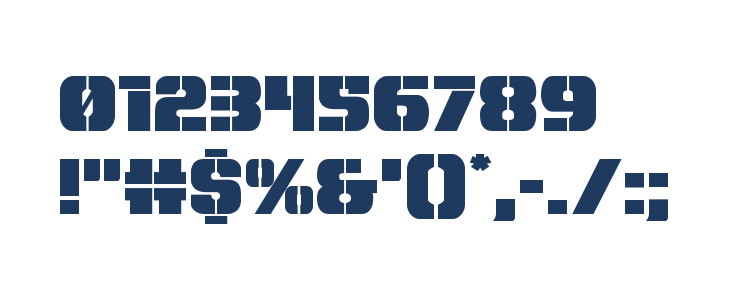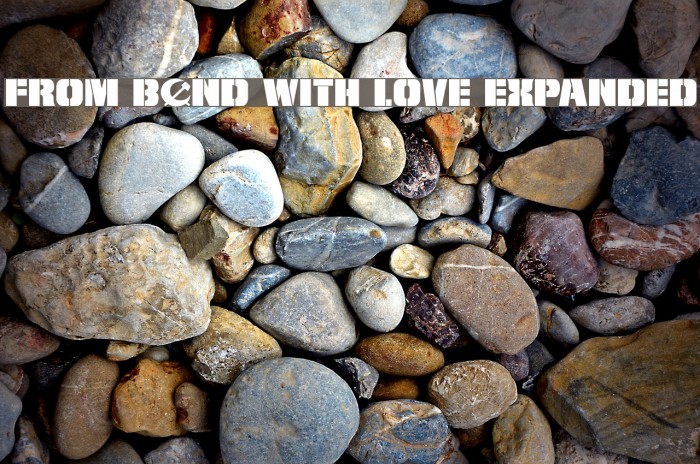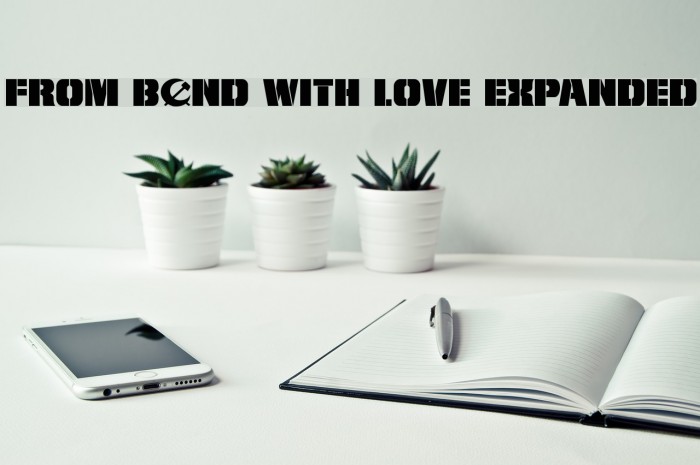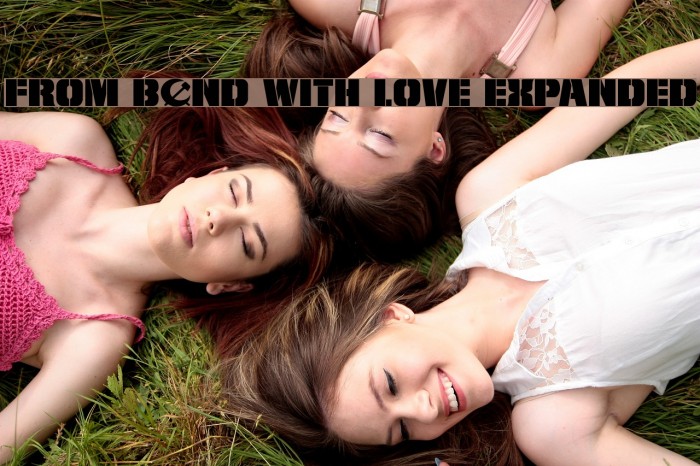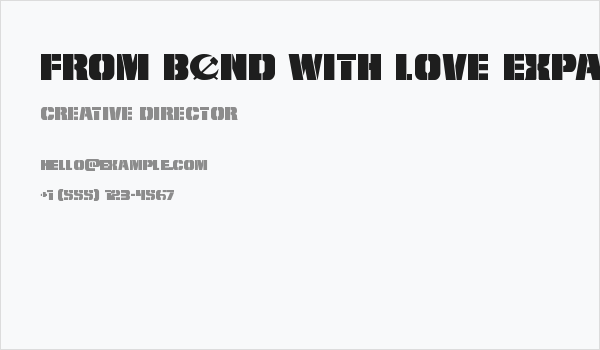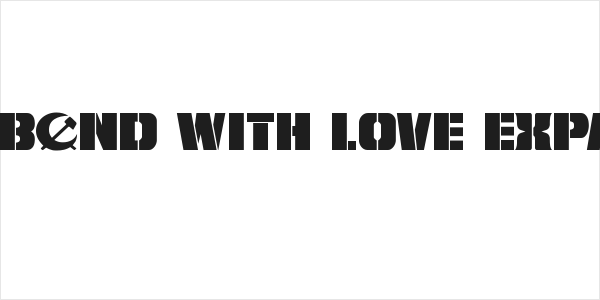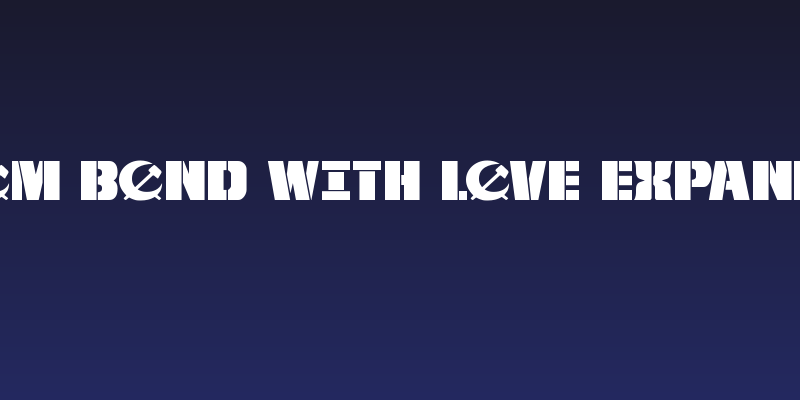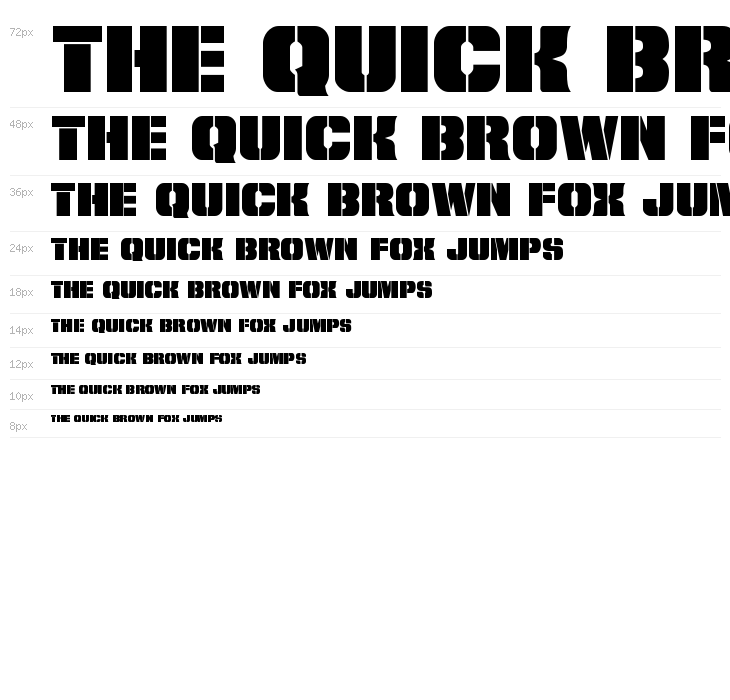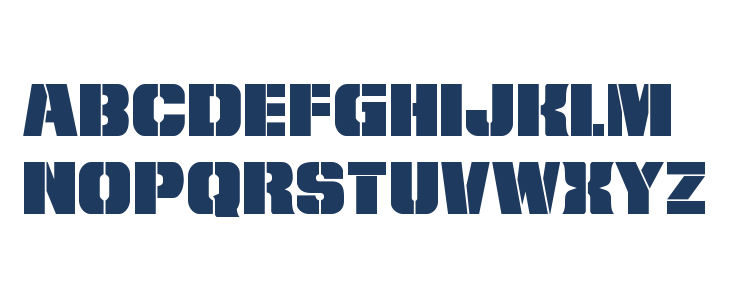
From BOND With Love Expanded Font
From BOND With Love Expanded Description
This font features a bold, stencil-like design with strong geometric shapes and high contrast between the thick strokes and the negative space. The characters are blocky and robust, giving a sense of strength and modernity. The uppercase letters are particularly striking, with a uniform width and a distinctive cut-out style that adds a unique visual interest. The numbers and special characters maintain this bold aesthetic, ensuring consistency across all glyphs. The overall style is reminiscent of industrial or military typefaces, making it suitable for impactful and attention-grabbing designs.
| Proposed Projects | Ideal for posters, branding, logos, and any design requiring a strong, modern impact. |